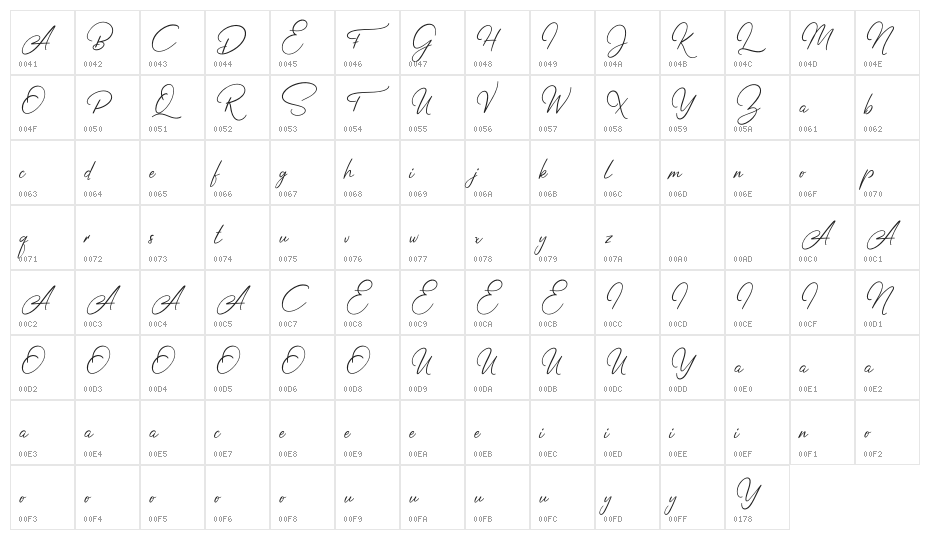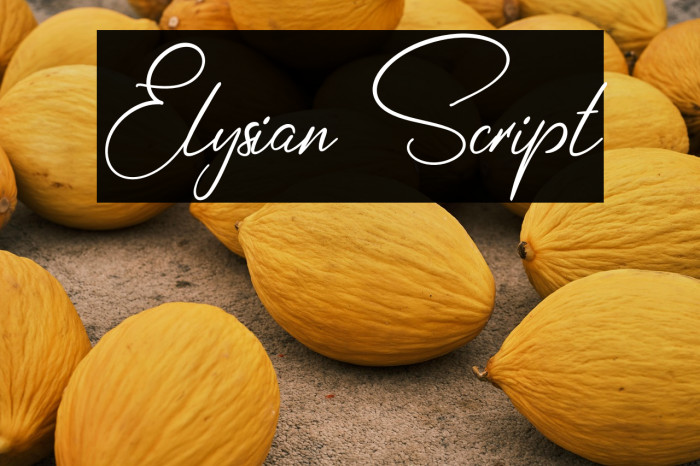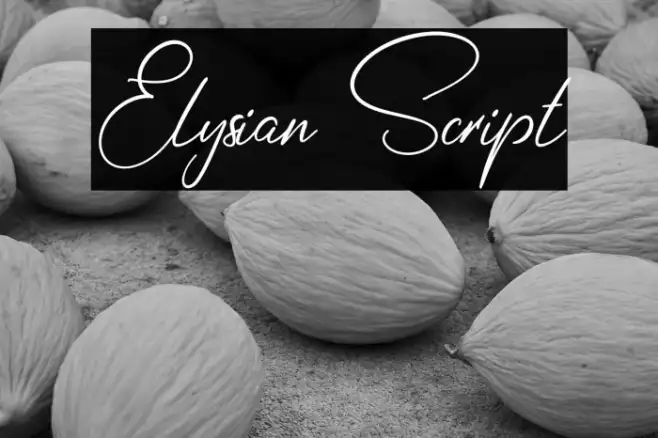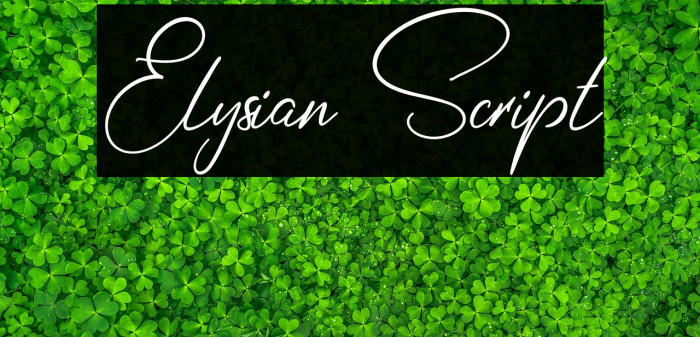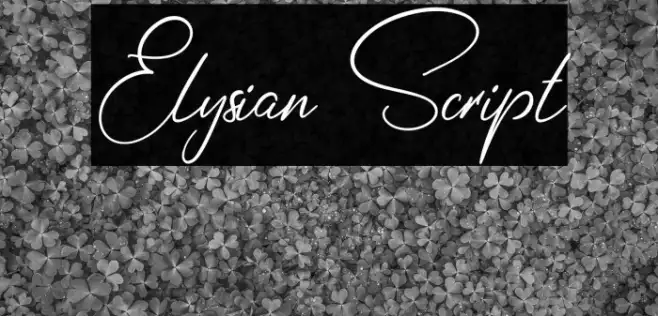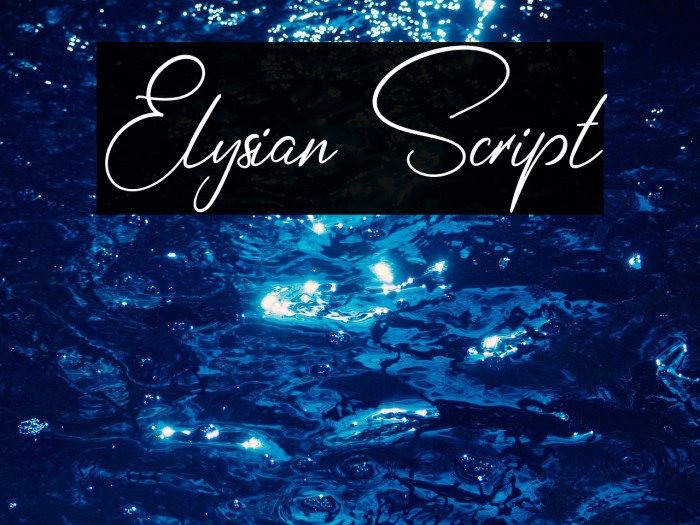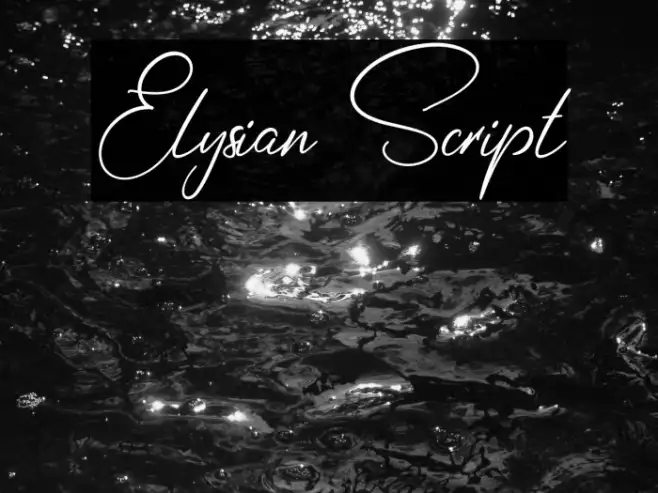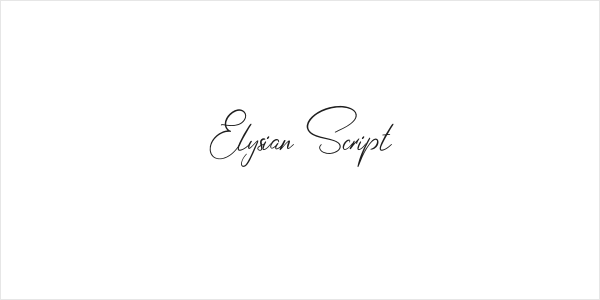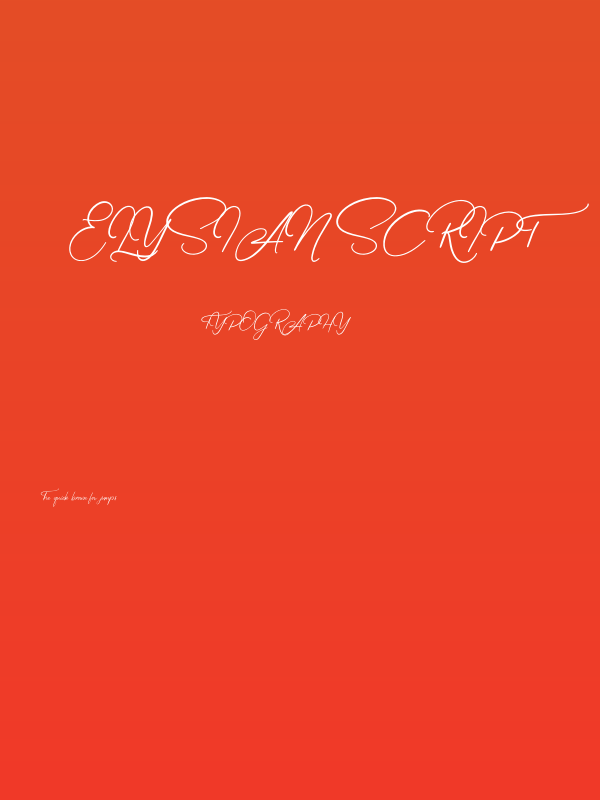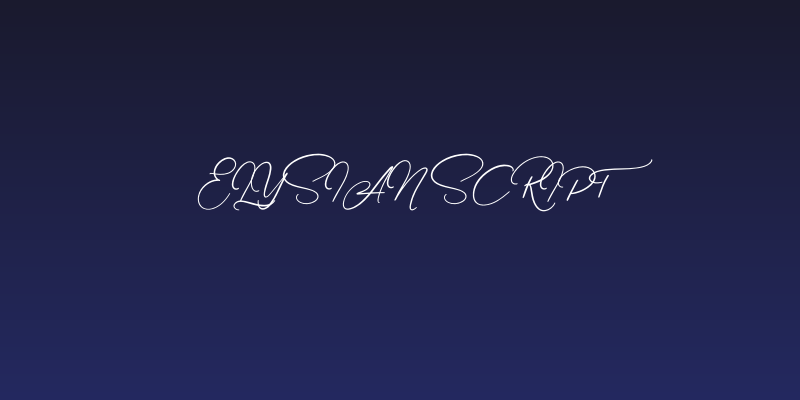
Elysian Script Font
Elysian Script Description
This elegant script font features fluid, interconnected strokes that mimic the natural flow of handwriting. The uppercase letters are ornate and sweeping, with flourishes that add a touch of sophistication and grace. The lowercase letters maintain a consistent style, offering a smooth and harmonious appearance. The font's overall design is both classic and refined, making it suitable for formal invitations, branding, and decorative purposes. Its delicate lines and curves create a sense of movement and elegance, perfect for projects that require a personal and artistic touch.
| Proposed Projects | Ideal for wedding invitations, elegant branding, greeting cards, and decorative designs. |